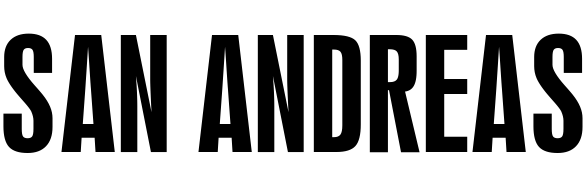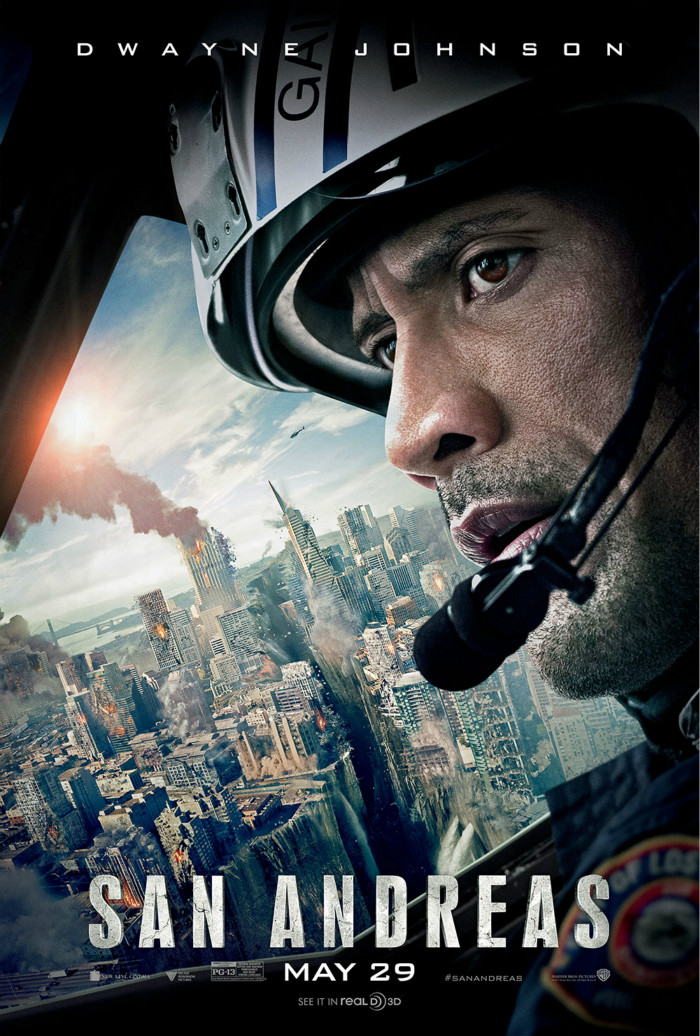
San Andreas (film) Font
ActionSan Andreas is a 2015 American disaster film directed by Brad Peyton. The film follows a rescue helicopter pilot named Ray (played by Dwayne Johnson) as he navigates through the aftermath of a devastating earthquake in California in search of his daughter.
The font used for the San Andreas title in the poster is very much like Swiss 924 by Bitstream. It is an old, narrow grotesque font that is a resurrected version of Stempel's original typeface, perhaps Information Bold Condensed.